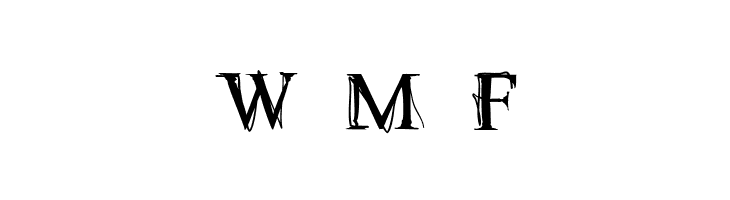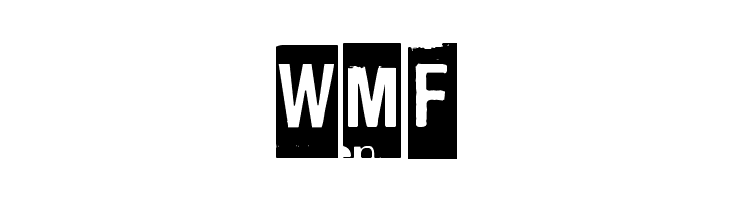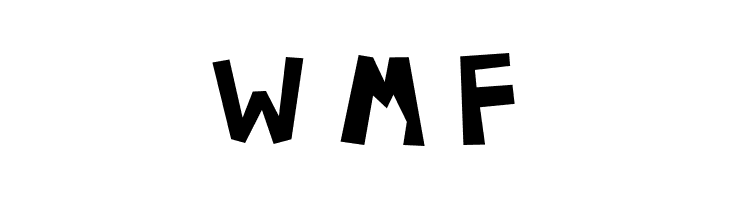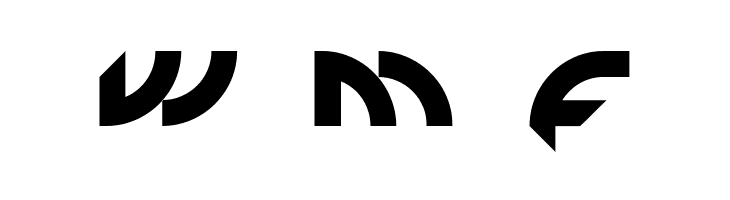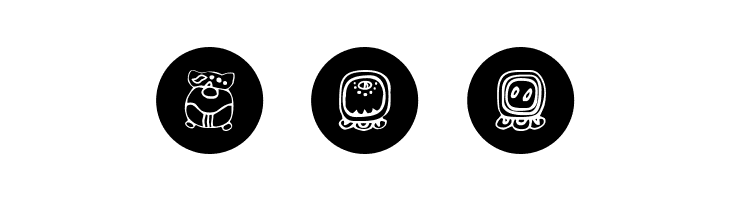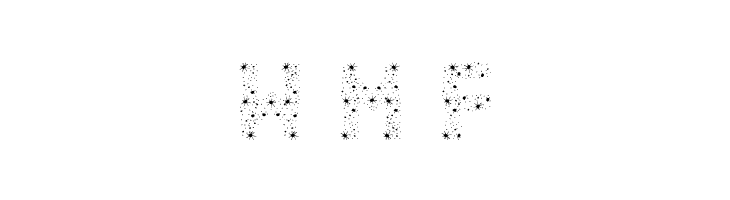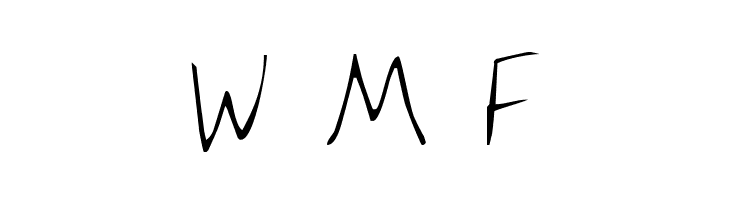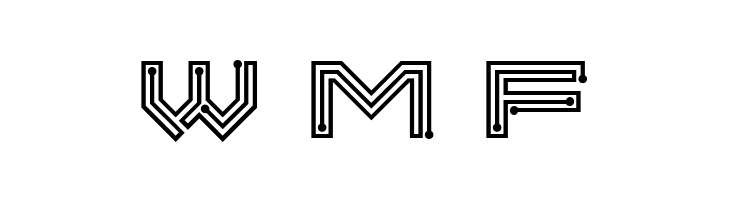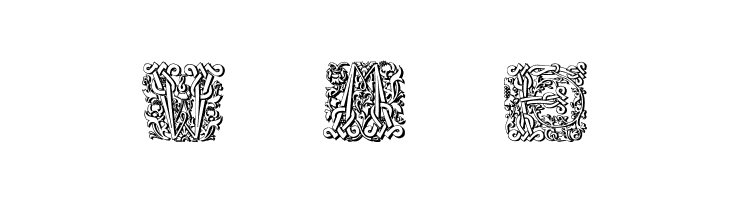
A playful, bold, and italicized handwritten font with rounded strokes.
A bold, rounded, and playful font with a leftward slant.
A playful, italicized outline font with smooth, flowing characters.
A modern sans-serif font with a clean and minimalistic design.
A bold, distressed font with a grunge, cut-out style.
A bold, jagged font with a hand-cut, edgy style.
A bold, jagged, and dynamic font with sharp, angular edges.
A bold, jagged font with an edgy, hand-crafted appearance.
A bold, jagged font with sharp, angular edges and an aggressive style.
A playful, comic-style font with a handwritten feel.
A bold, playful font with a comic book style and hand-drawn appearance.
A bold, playful font with irregular, angular characters.
Decorative maritime-themed dingbat set with bold, vintage illustrations.
A traditional blackletter font with ornate and angular letterforms.
An ornate, vintage-style font with intricate floral patterns.
An ornate and decorative font with intricate swirls and flourishes.
A creative set of emoticons using mathematical symbols to depict facial expressions.
A playful and whimsical set of characters combining mathematical symbols and emoticons.
Abstract, hand-drawn decorative glyphs with organic, expressive forms.
A whimsical, hand-drawn font with a vintage, artistic flair.
Decorative font mimicking Mayan glyphs within black discs.
An ornate medieval-style font with intricate curves and flourishes.
A modern, clean sans-serif font with balanced proportions and geometric influences.
A futuristic, geometric font with a double-line structure and consistent stroke width.
A playful, casual handwritten font with irregular strokes and organic flow.